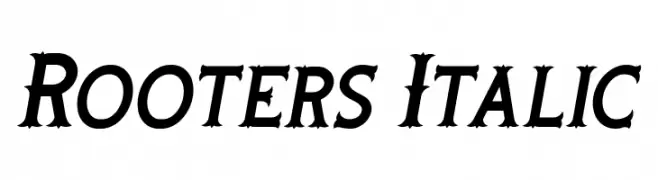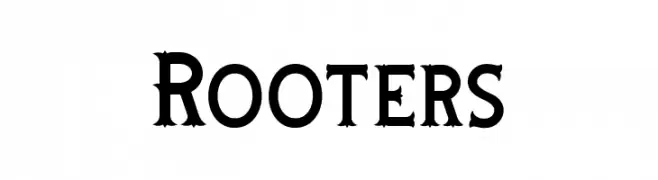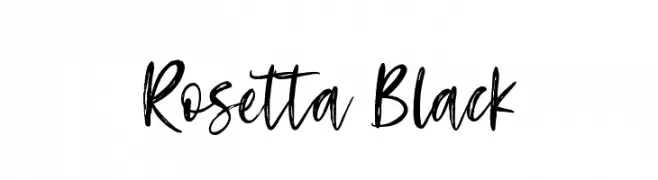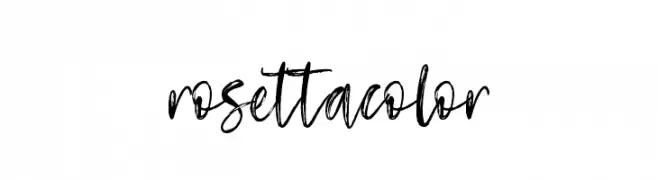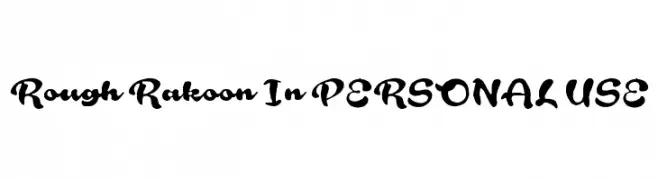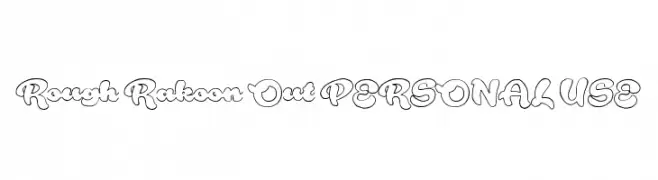
A bold, decorative font with sharp serifs and intricate details.
A bold, decorative italic font with sharp serifs and dynamic style.
A sophisticated script font with flowing, interconnected characters and elegant flourishes.
A playful and elegant script font with fluid strokes and artistic flair.
A playful, hand-drawn font with rounded edges and a casual style.
A bold, expressive handwritten font with a brush-like texture.
A dynamic, expressive handwritten font with fluid strokes and natural flow.
An elegant, cursive font with intricate loops and sweeping curves.
A bold, playful handwritten font with fluid, brush-like strokes.
A playful, bubble-like font with rounded, consistent outlines.